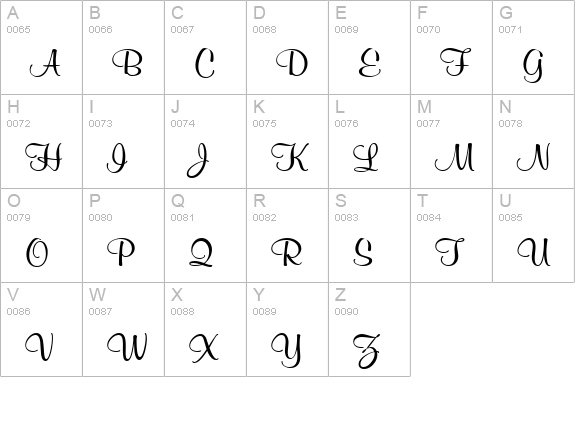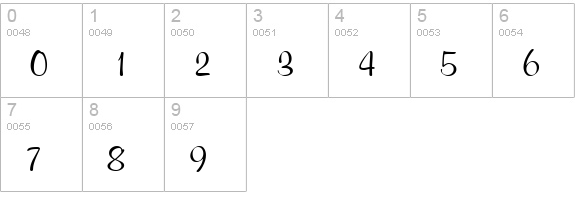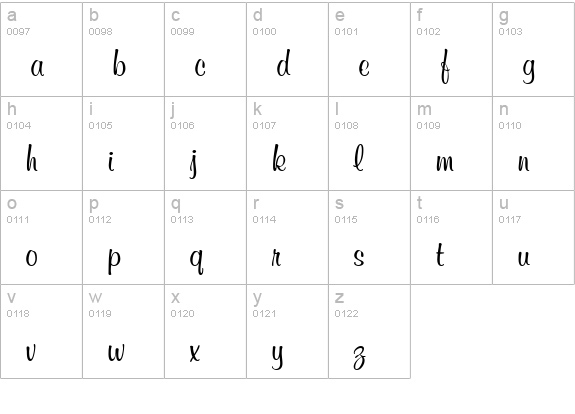
MurphyScript Regular Font Details
MurphyScript Regular is the standard, neutral variant in the MurphyScript typeface family \xE2\x80\x94 well suited to general body text, paragraphs, and standard typographic work.
MurphyScript Regular font is a delightful and elegant typeface that exudes charm and sophistication. Its flowing script style and balanced letterforms make it perfect for a wide range of design projects, from invitations to branding to packaging. This versatile font features a clean and modern aesthetic with a touch of classic elegance, making it suitable for both digital and print applications. Whether you're creating wedding invitations, greeting cards, or social media graphics, MurphyScript Regular is sure to add a touch of style and personality to your designs. Best of all, MurphyScript Regular font is available for free download at FontsMarket.com, so you can easily add this beautiful typeface to your font collection without breaking the bank. Download MurphyScript Regular today and elevate your design projects with its timeless beauty and charm.